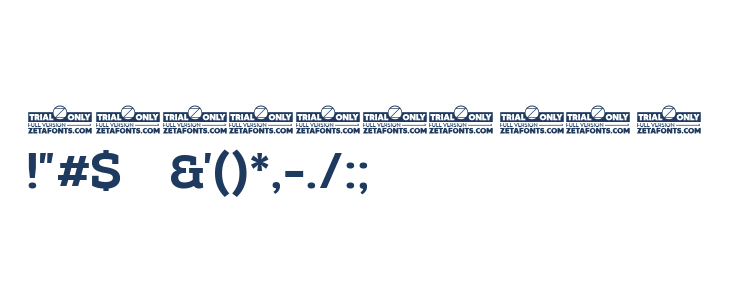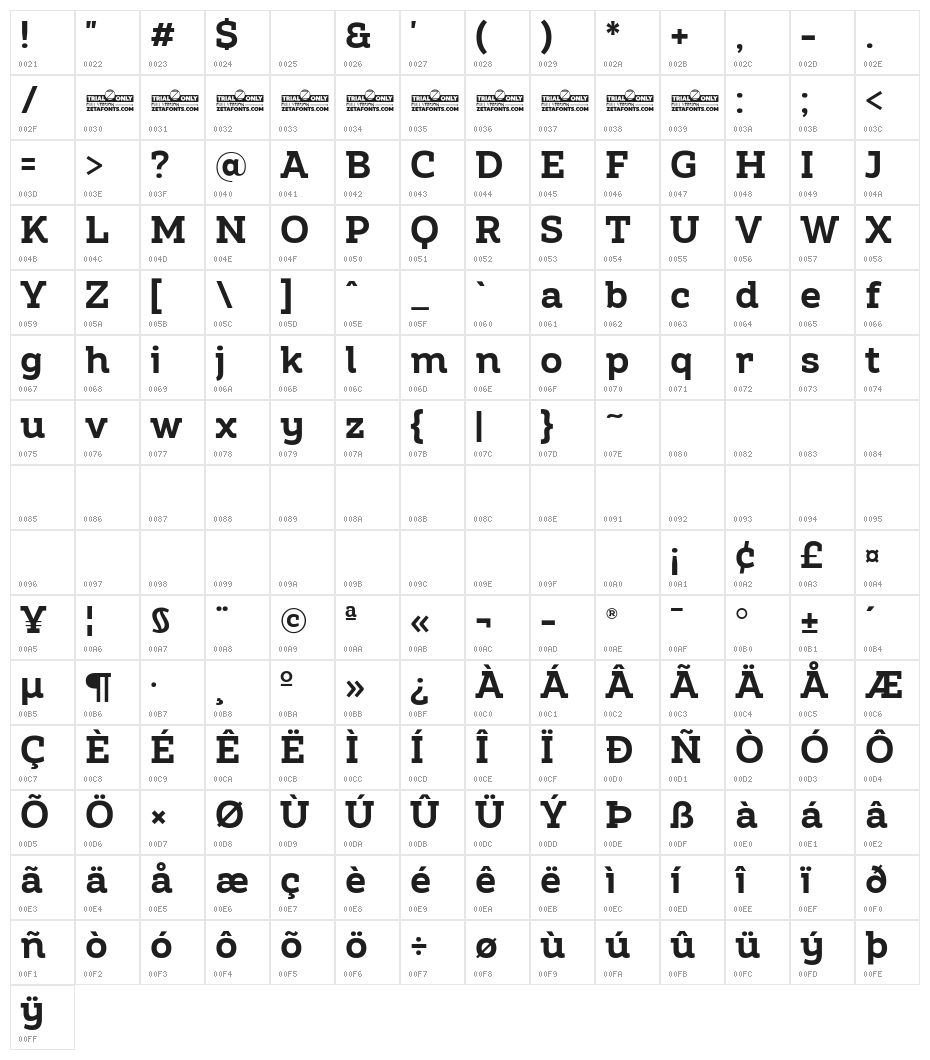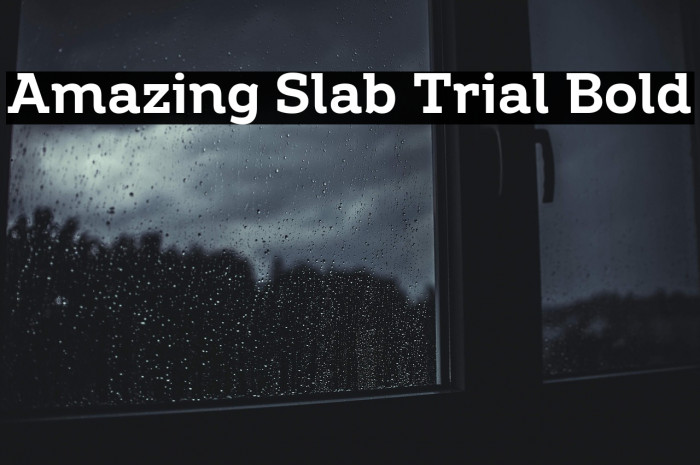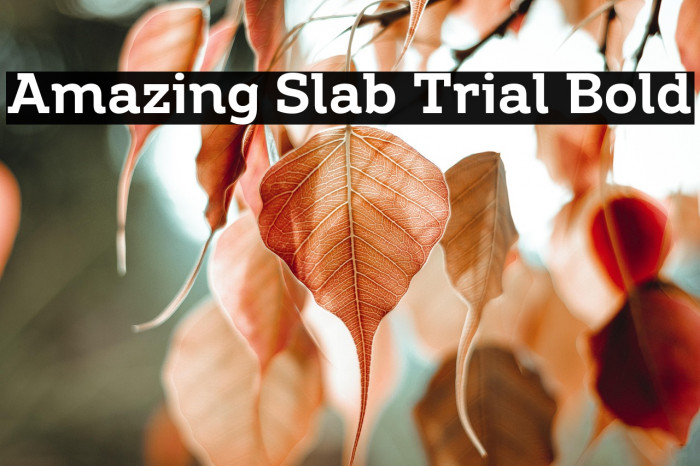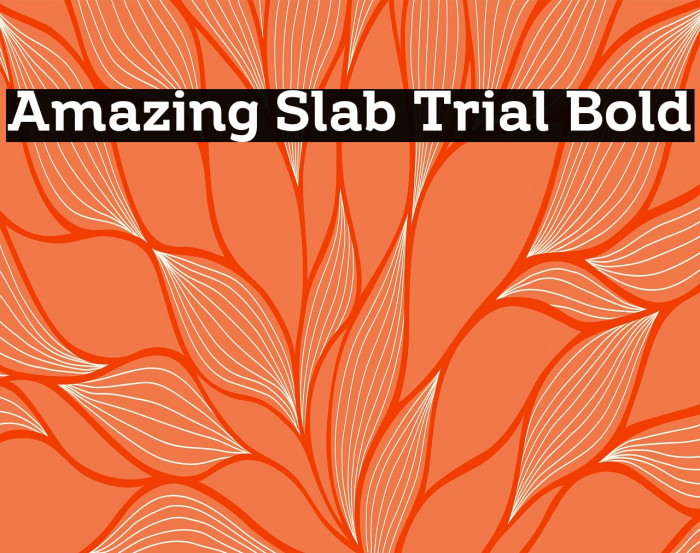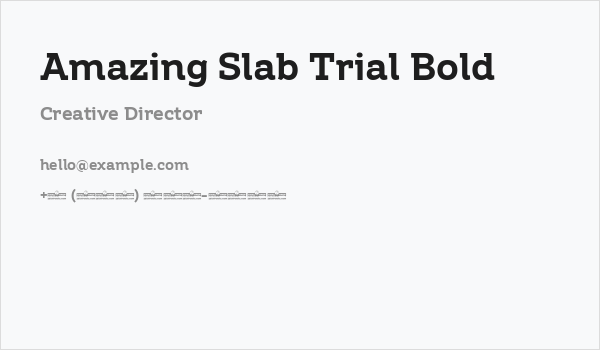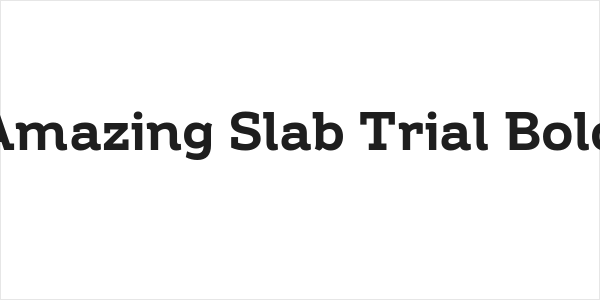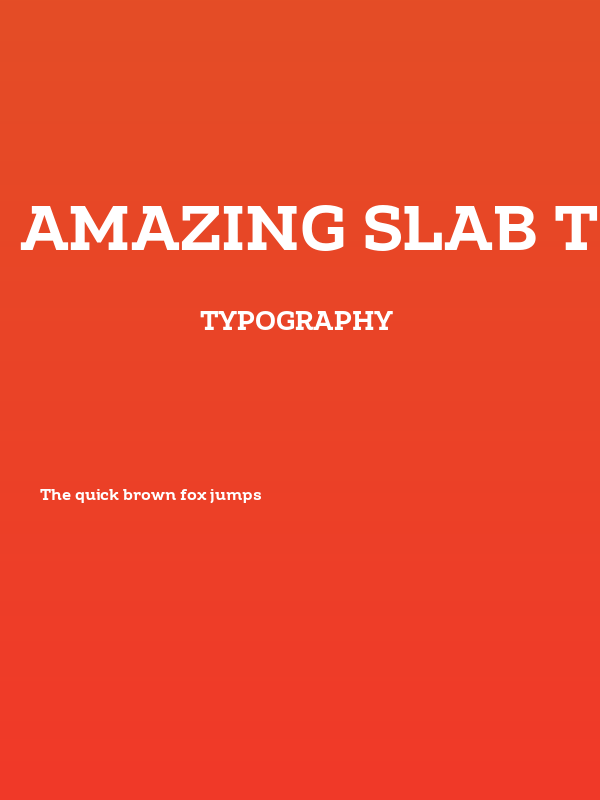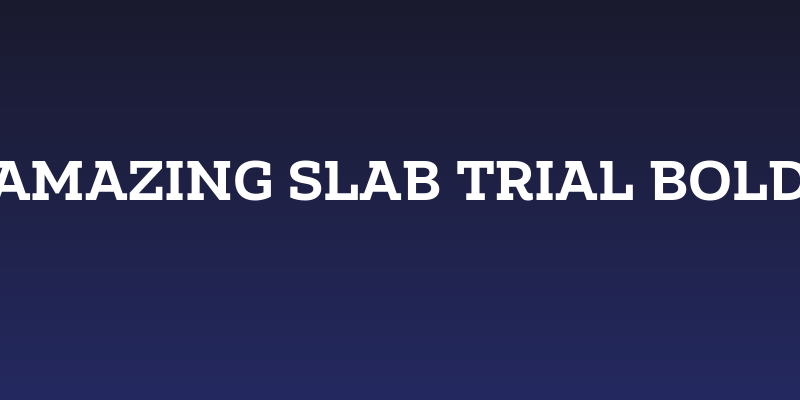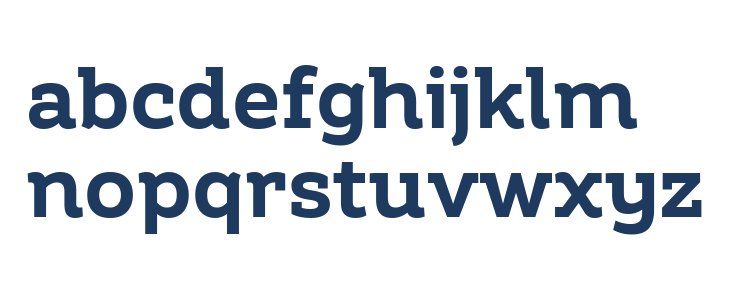
Amazing Slab Trial Bold Font
Amazing Slab Trial Bold Description
This font features a robust and bold slab serif style, characterized by thick, block-like serifs that provide a strong and confident appearance. The uppercase letters are evenly spaced, with a consistent weight that enhances readability. The lowercase letters maintain a similar weight, offering a harmonious balance between the two cases. The numerals are clear and distinct, making them suitable for various applications. Special characters are well-defined, ensuring versatility in design projects. The overall design is modern yet retains a classic touch, making it suitable for both contemporary and traditional uses.